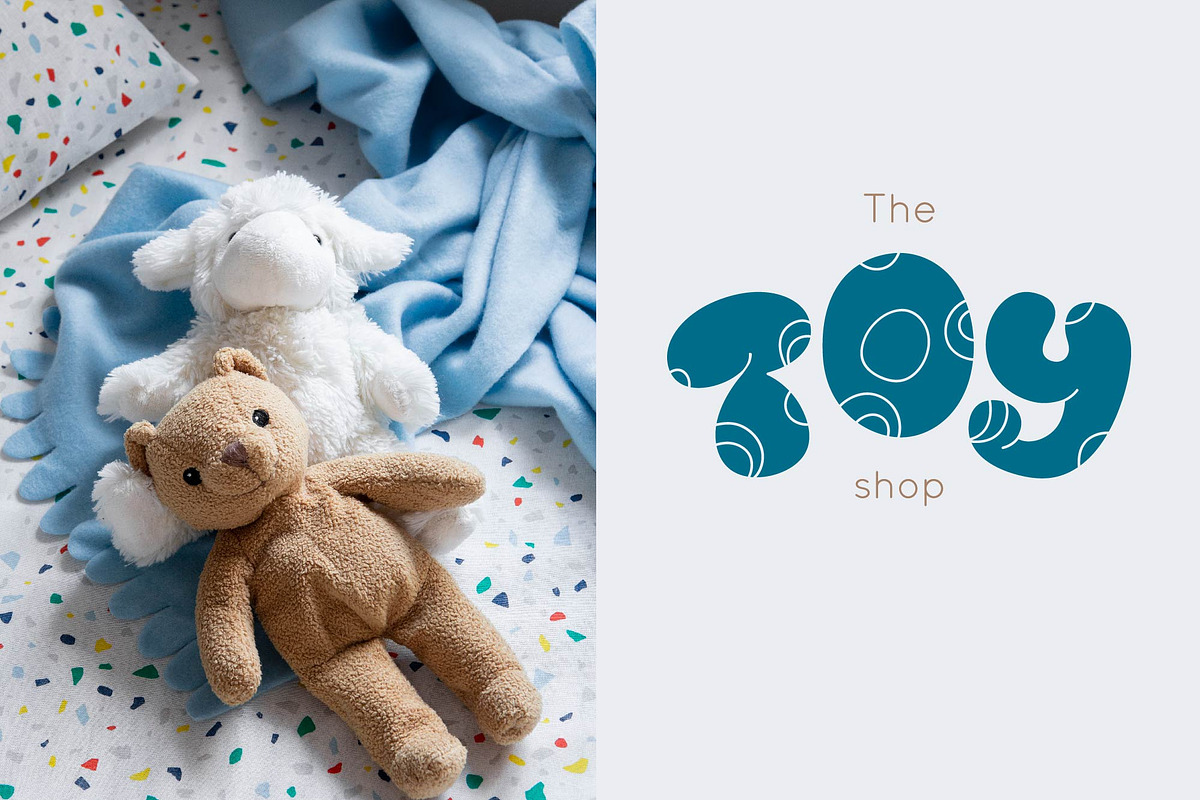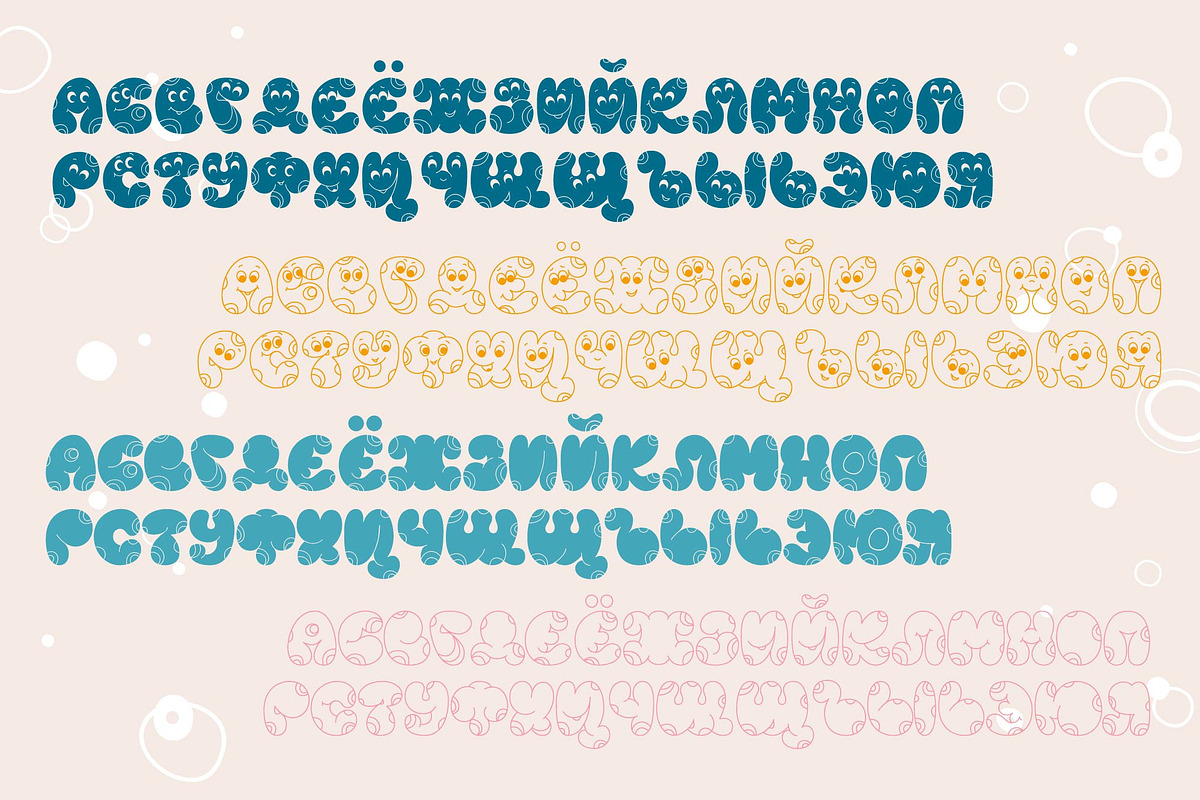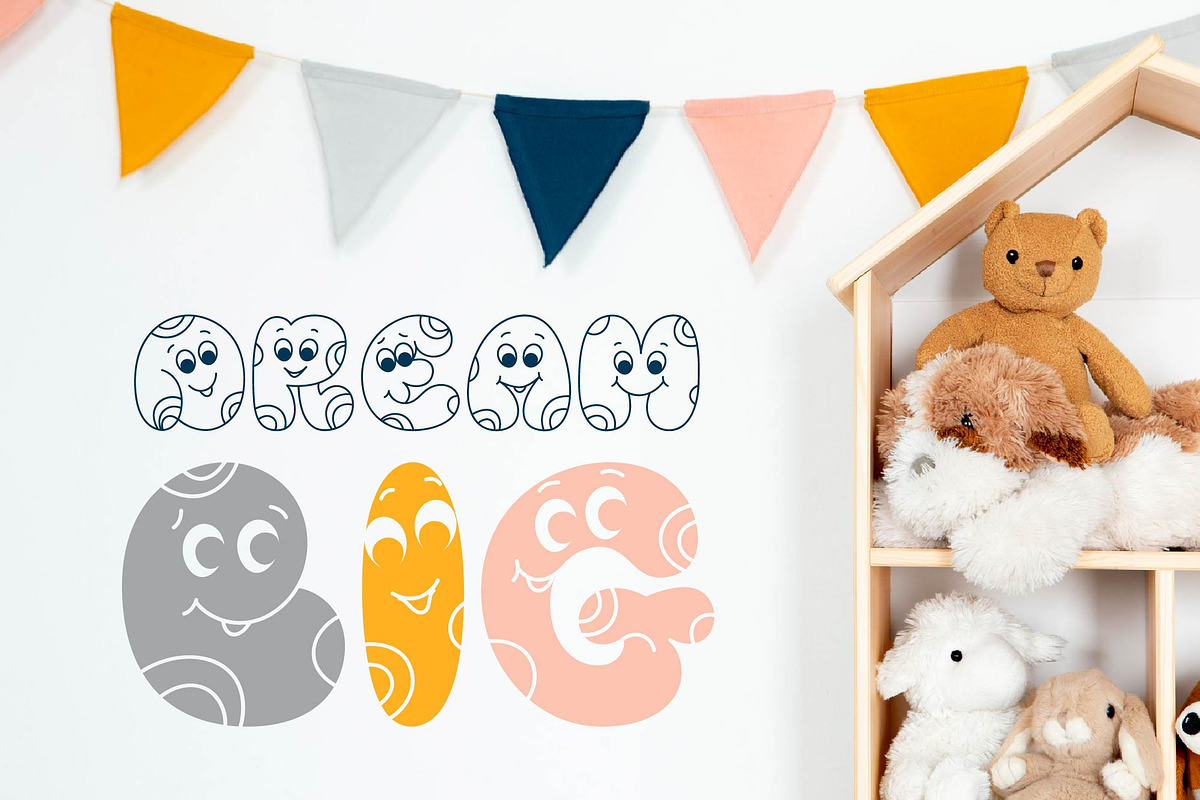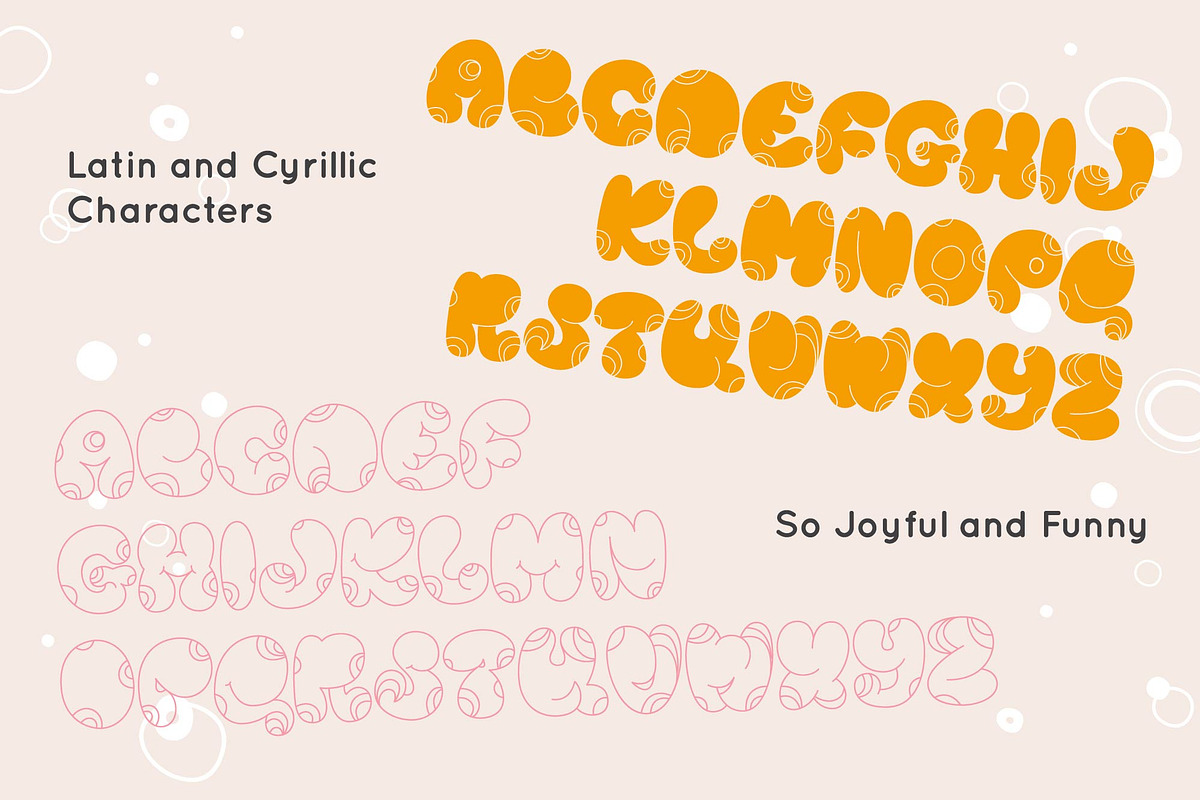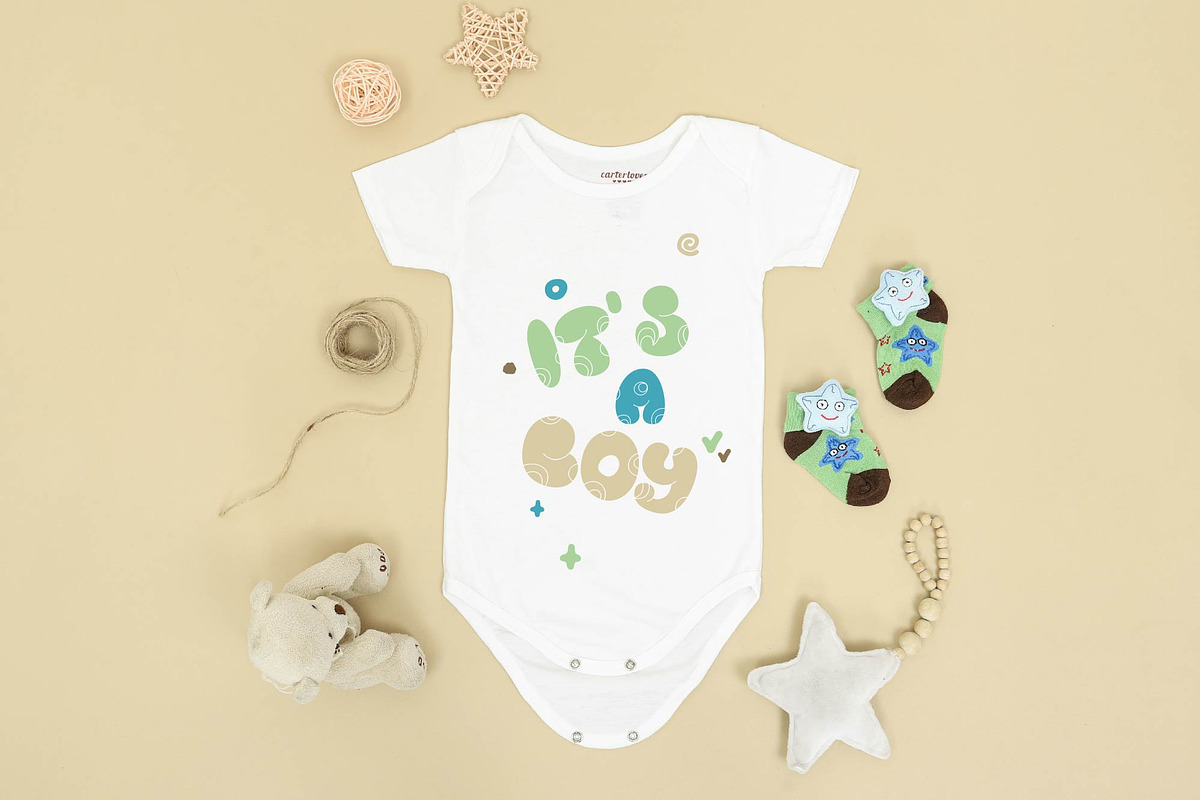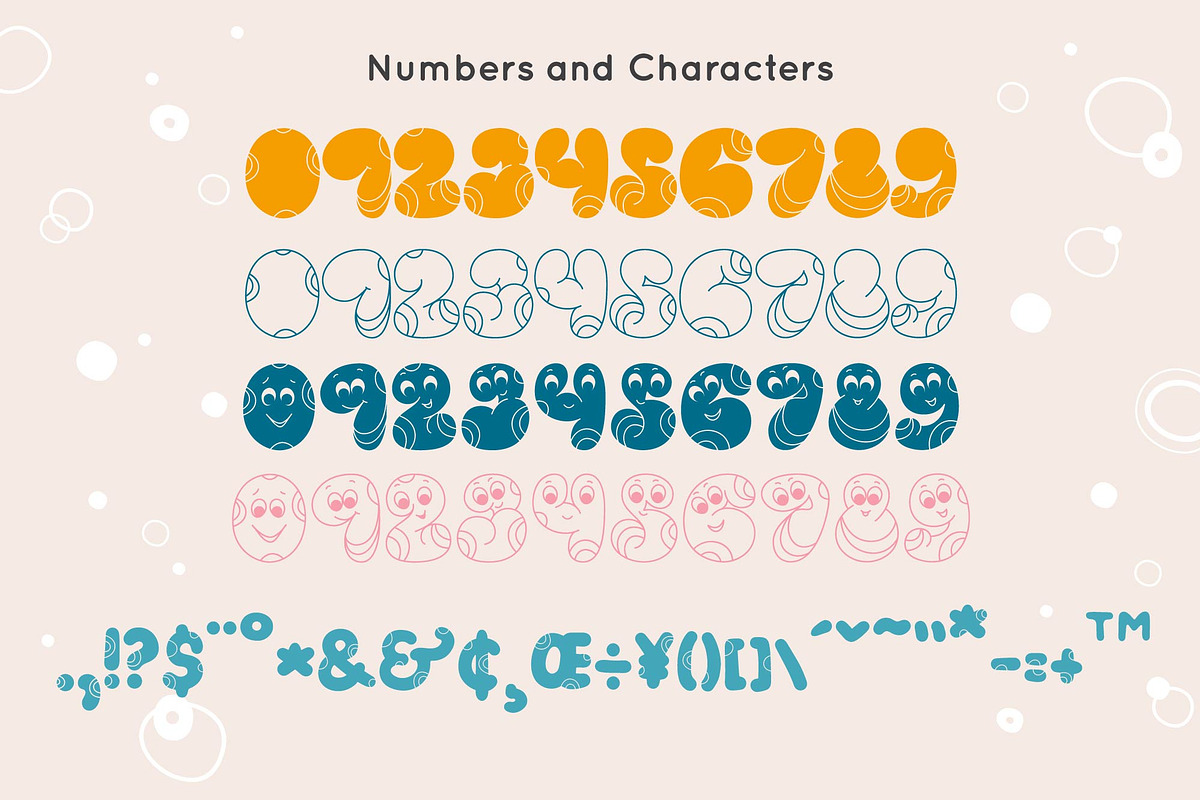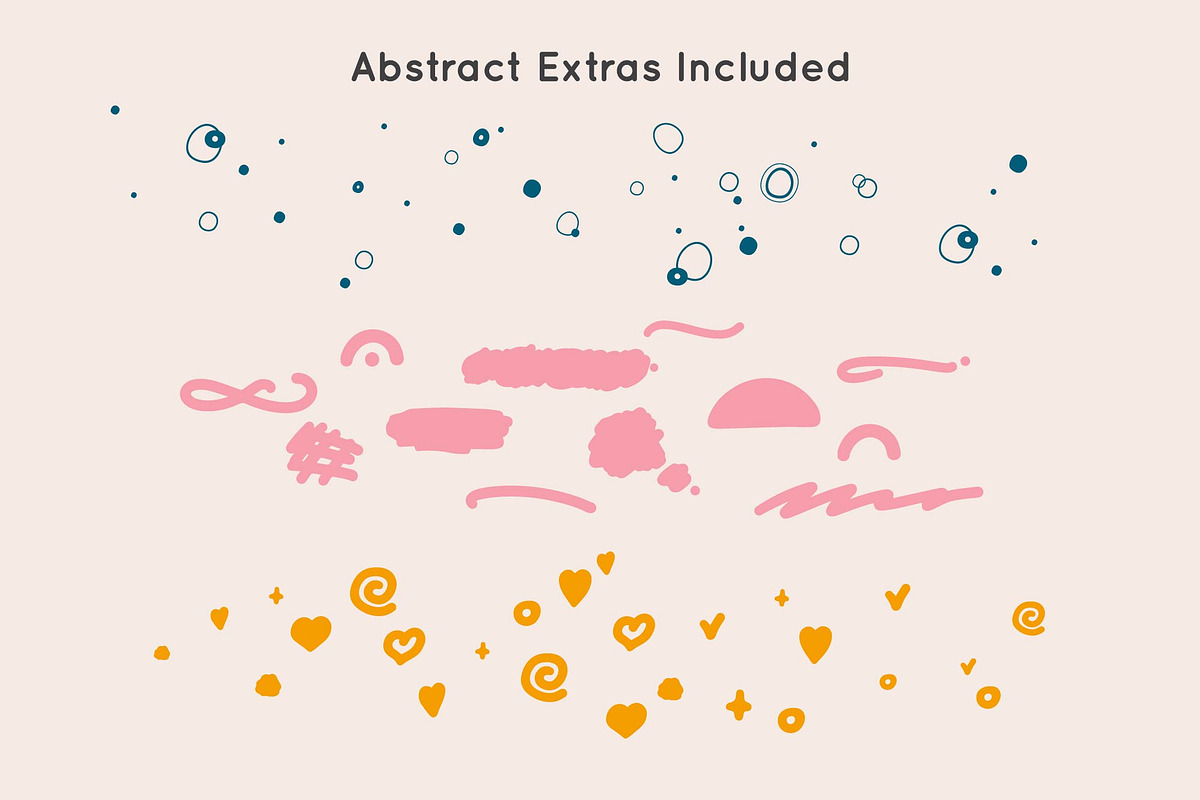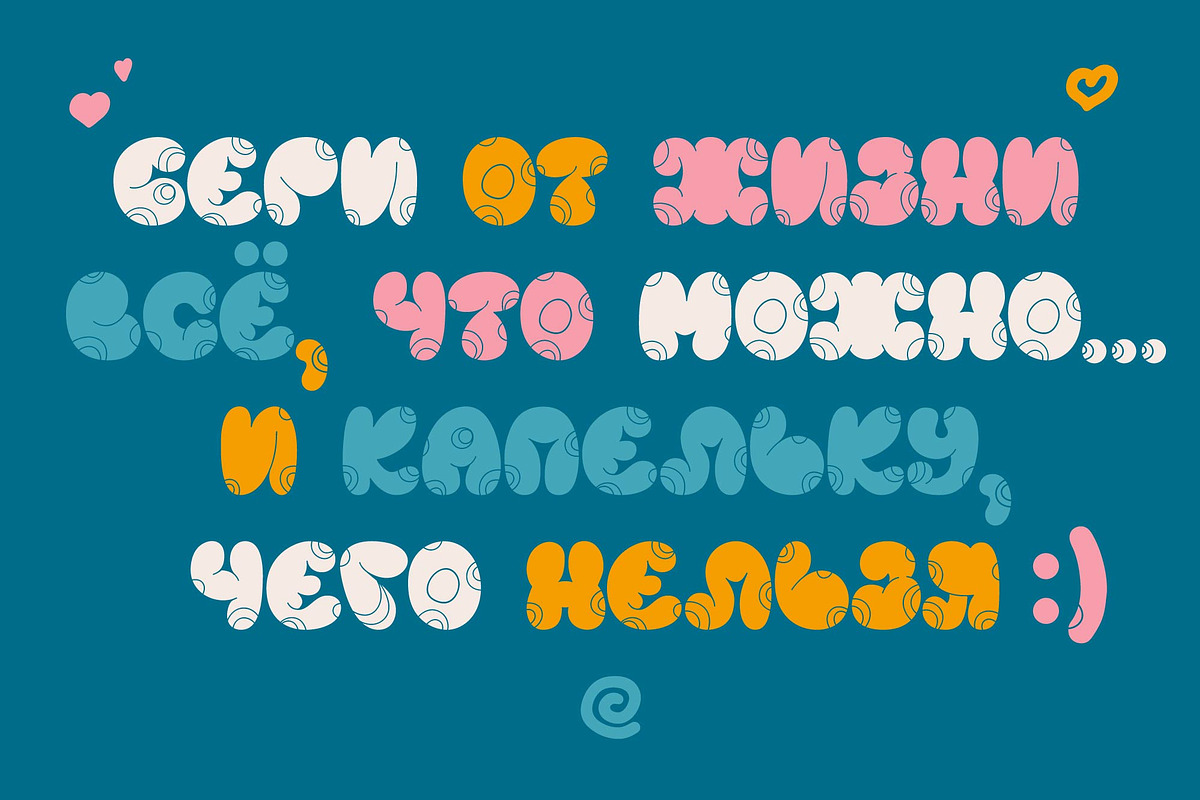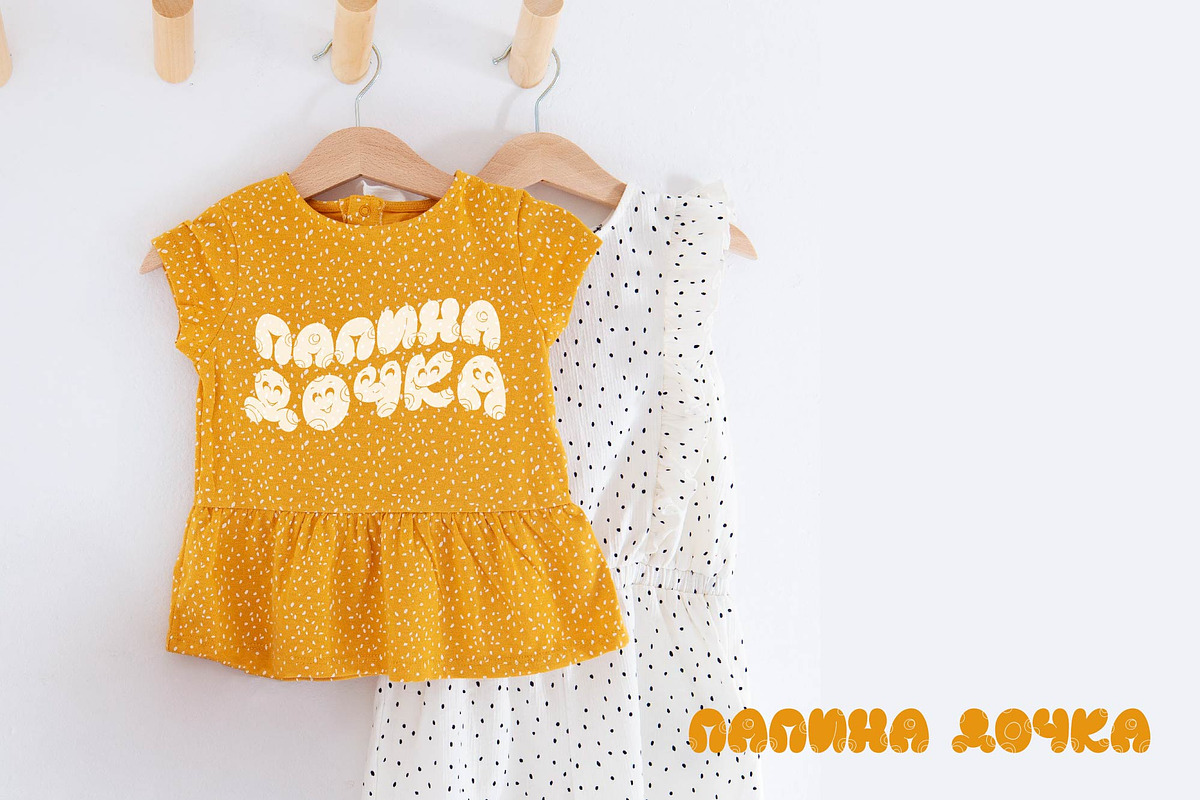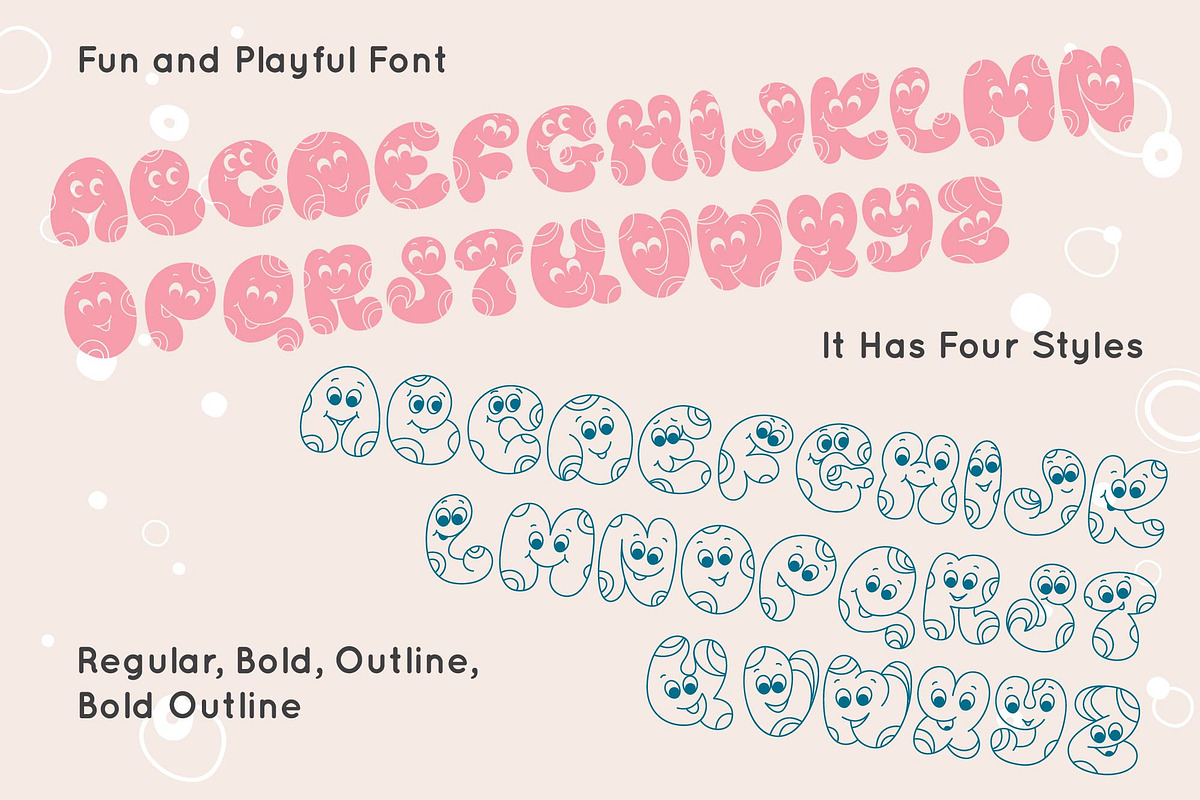
HUMOR playful font family
HUMOR is an uneven, unexpected, playful font family with latin and cyrillic letters which puts a smile on your projects and will inspire you to create something fun and memorable. It is perfect for headings, flyer, greeting cards, product packaging, book cover, printed quotes, logotype, apparel design, album covers, etc
HUMOR will help you to create special and touching typographical design for scandinavian or childish projects, for every day or the happiest day in life, summer vacations, baby shower, happy birthday cards. It is really universal and modern font. The owner of endless possibilities!
Just create the best design and make your projects cosy, funny, truly hand-painted realistic and natural.
- HUMOR Regular
- HUMOR Bold
- HUMOR Outline
- HUMOR Bold Outline
HUMOR font has uppercase letters, hand-drawn extras numbers & basic punctuation, multilingual support (Russian, French, German, Italian, Norwegian, Portuguese, Spanish, Swedish, Swiss German).